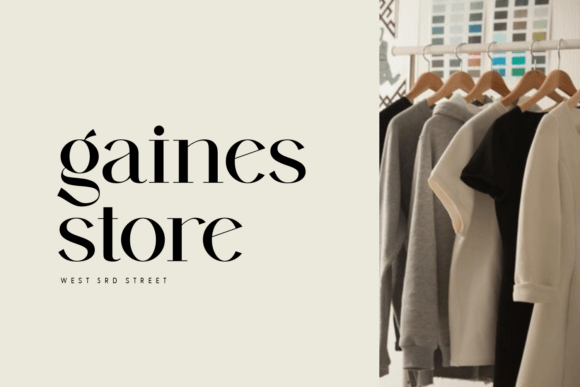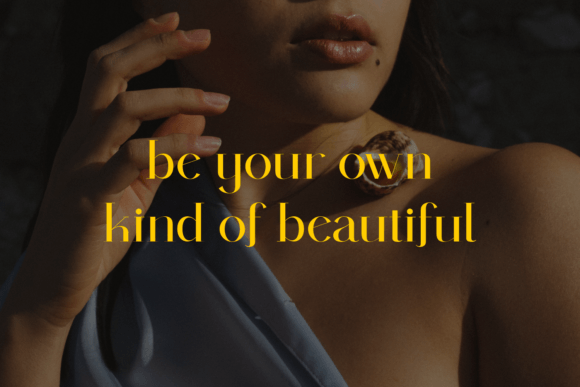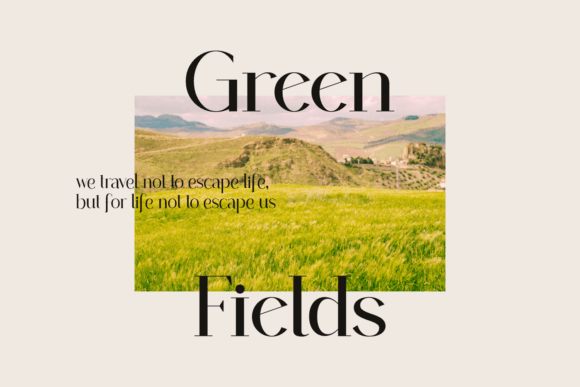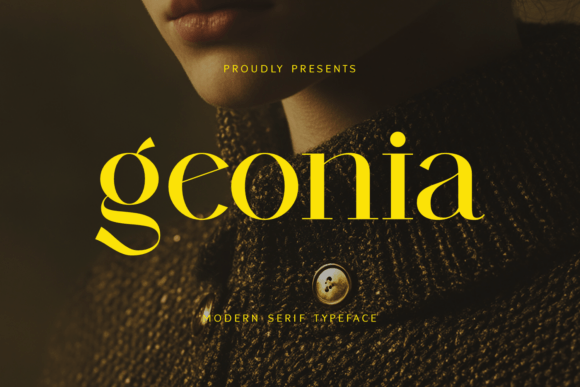
Introduction to Geonia Font
Geonia is a modern serif font known for its clean and stylish look.
It has elegant lines and balanced shapes, making it easy to read This font works well for both print and digital projects, giving a touch of sophistication to any design.
Key Features of Geonia Font
Why Choose Geonia Font?